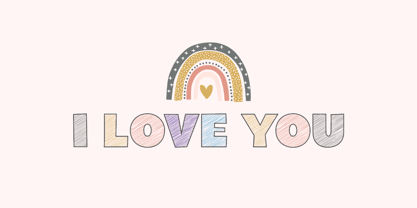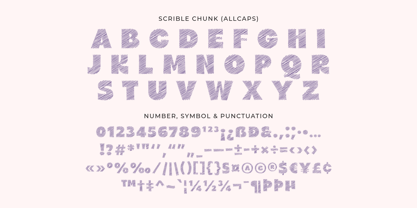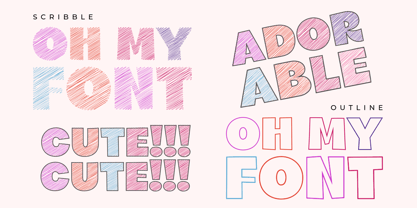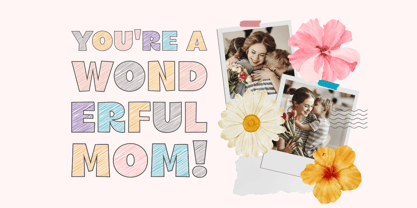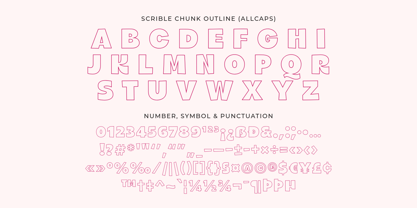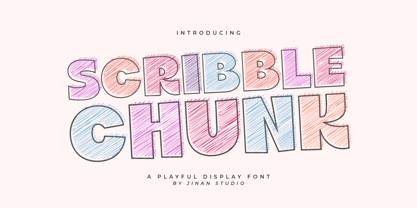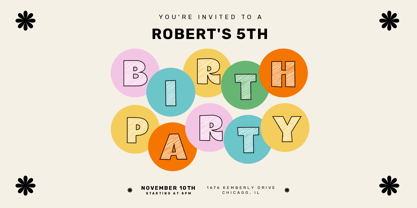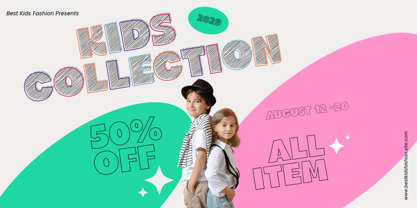
Scribble Chunk
by Jinan Studio
The Scribble Chunk Font Family was designed by Andi Syahdang, Ainun Jinan and published by Jinan Studio. Scribble Chunk contains 2 styles and family package options. More about this family
Scrible Chunk is a playful display font inspired by hand-drawn scribbles and chunky lettering. Designed to bring a cheerful, creative, and energetic feel, this font blends bold shapes with sketch-style strokes, making every word look lively and full of personality. Perfect for kids’ projects, playful branding, posters, book covers, packaging, social media graphics, classroom materials, and creative merchandise, Scrible Chunk adds a fun and friendly touch to any design. Its chunky letterforms ensure strong readability while the scribble texture gives a casual, handmade charm that stands out. Whether you're designing for playful brands, creative projects, or fun typography layouts, Scrible Chunk helps your text feel expressive, warm, and engaging. Features Allcaps Number, symbol, and punctuation Multilingual Support Outline Version
Designers: Andi Syahdang, Ainun Jinan
Foundry: Jinan Studio